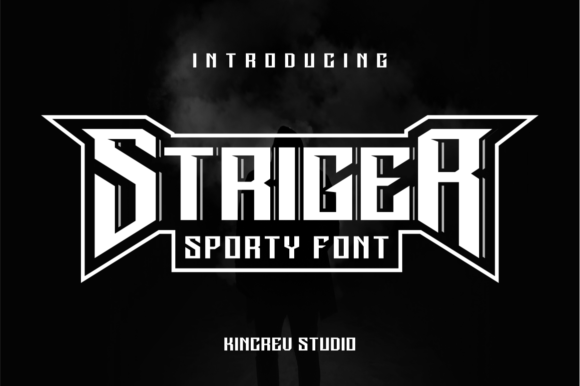
Journey into the realm of gaming and let Striger's digital charisma electrify your creations. This audacious display font, masterfully crafted by Kincrev Studio, exudes power and dynamism, ready to elevate your projects to new heights.
Striger's bold and sporty aesthetic is a perfect match for the adrenaline-fueled world of gaming. Its sharp edges and dynamic curves evoke a sense of speed and excitement, capturing the essence of intense competitions and epic quests. Whether you're creating captivating YouTube thumbnails, designing eye-catching Twitch banners, or developing immersive game interfaces, Striger will add an unforgettable touch of visual intrigue.
With its versatile personality, Striger effortlessly adapts to a wide range of gaming genres. From fantasy RPGs with their enchanting landscapes and mythical creatures, to futuristic sci-fi worlds filled with neon lights and sleek technologies, Striger seamlessly blends with your artistic vision. Its distinct character shines through, whether you're crafting logos that command attention or streaming titles that ignite curiosity.
Beyond the gaming realm, Striger's versatility extends to other creative endeavors. Unleash your imagination in crafting posters that burst with energy, flyers that demand attention, and social media graphics that captivate audiences. Striger's bold strokes and energetic vibe are guaranteed to leave a lasting impression, ensuring your designs stand out from the crowd.
Embrace Striger's captivating charm and step into a world of boundless creativity. Let your designs radiate confidence and leave an indelible mark on the digital landscape. Join countless designers, gamers, and content creators who have already fallen under Striger's spell.